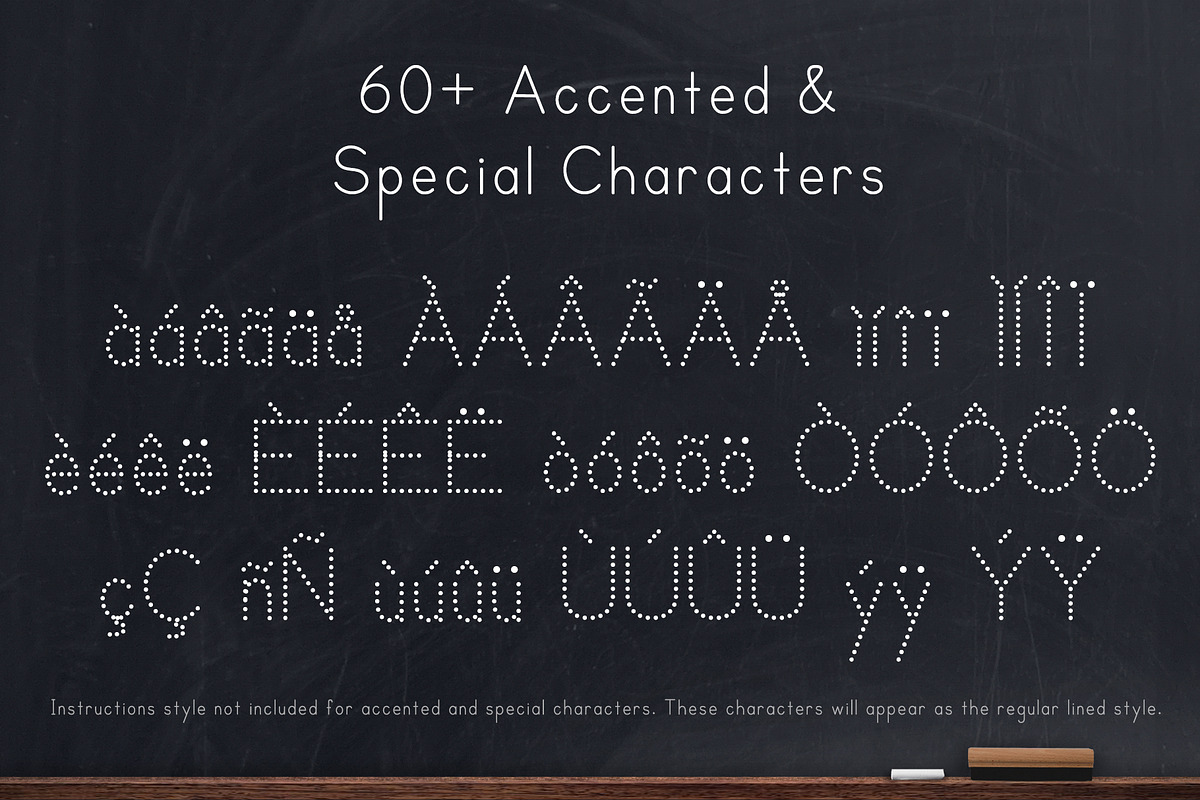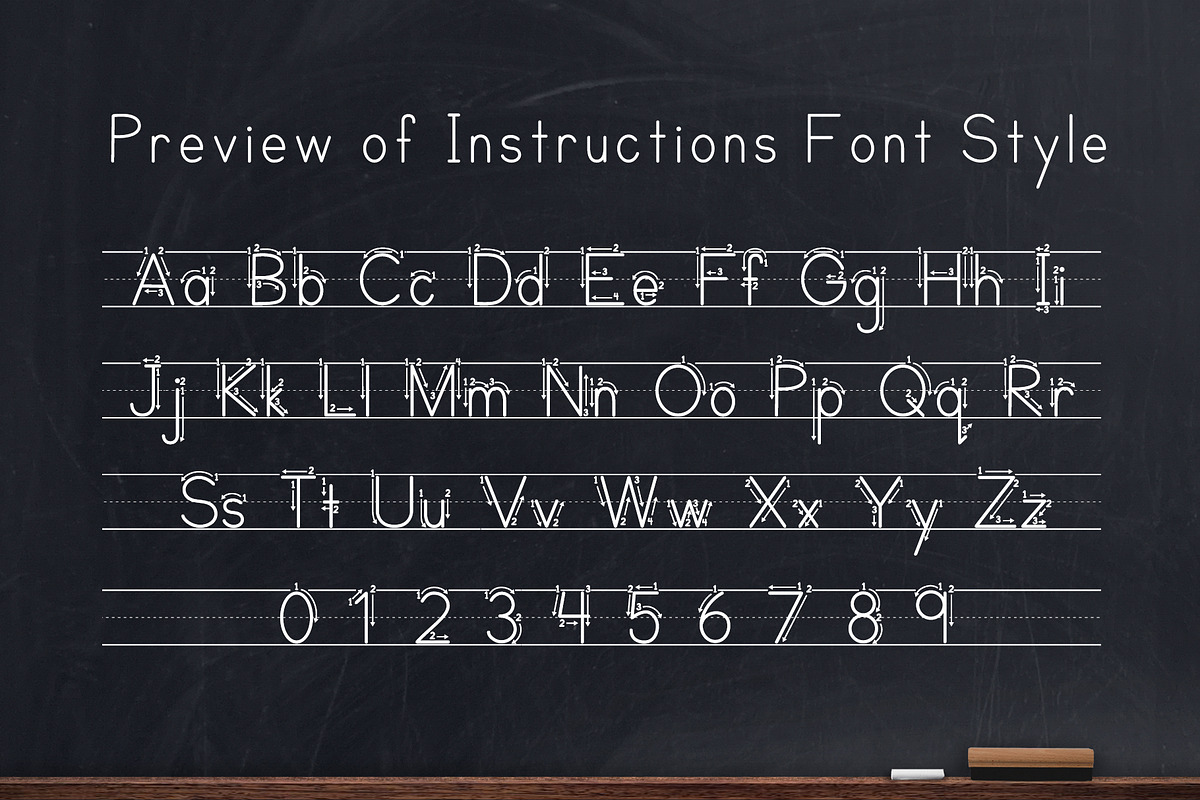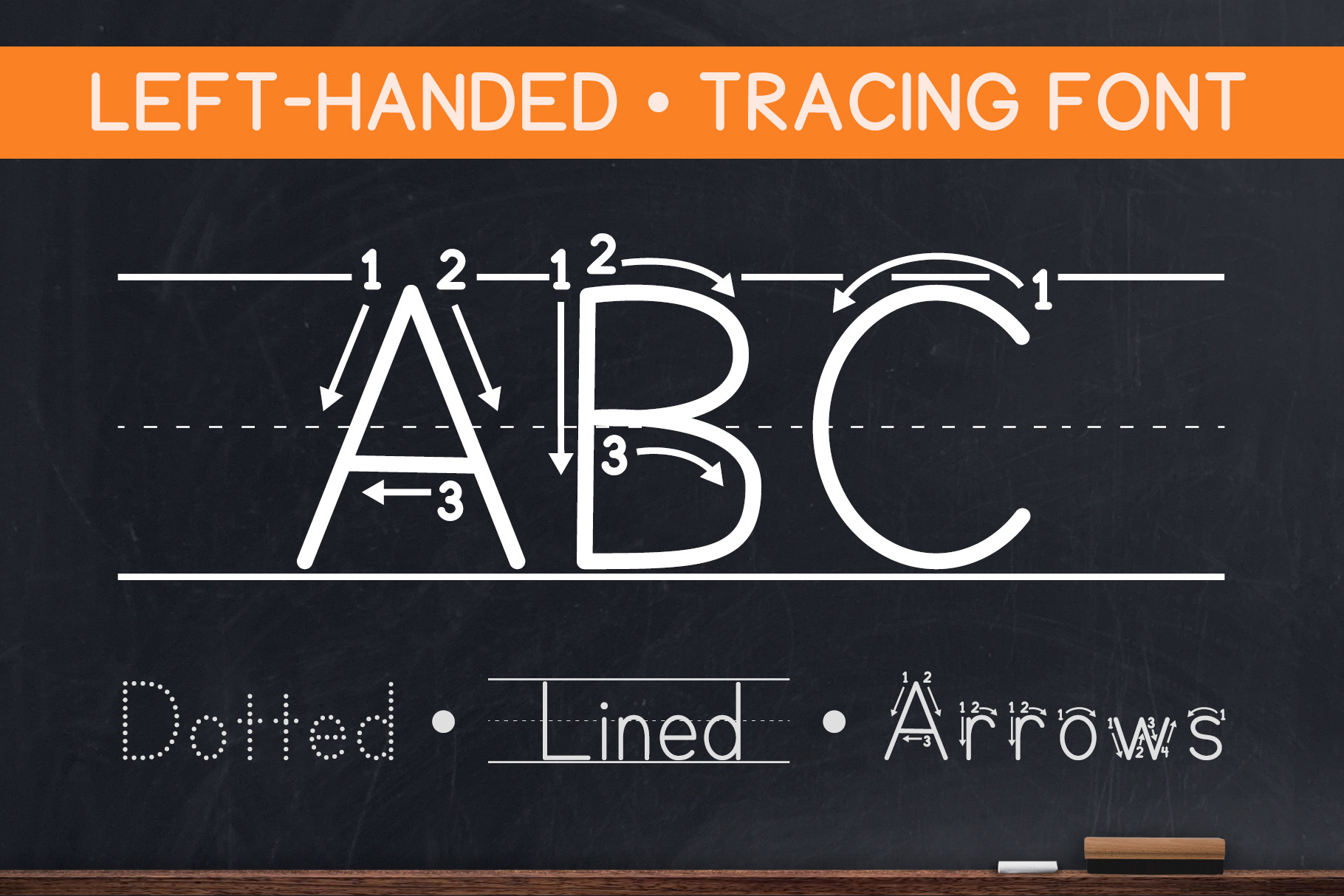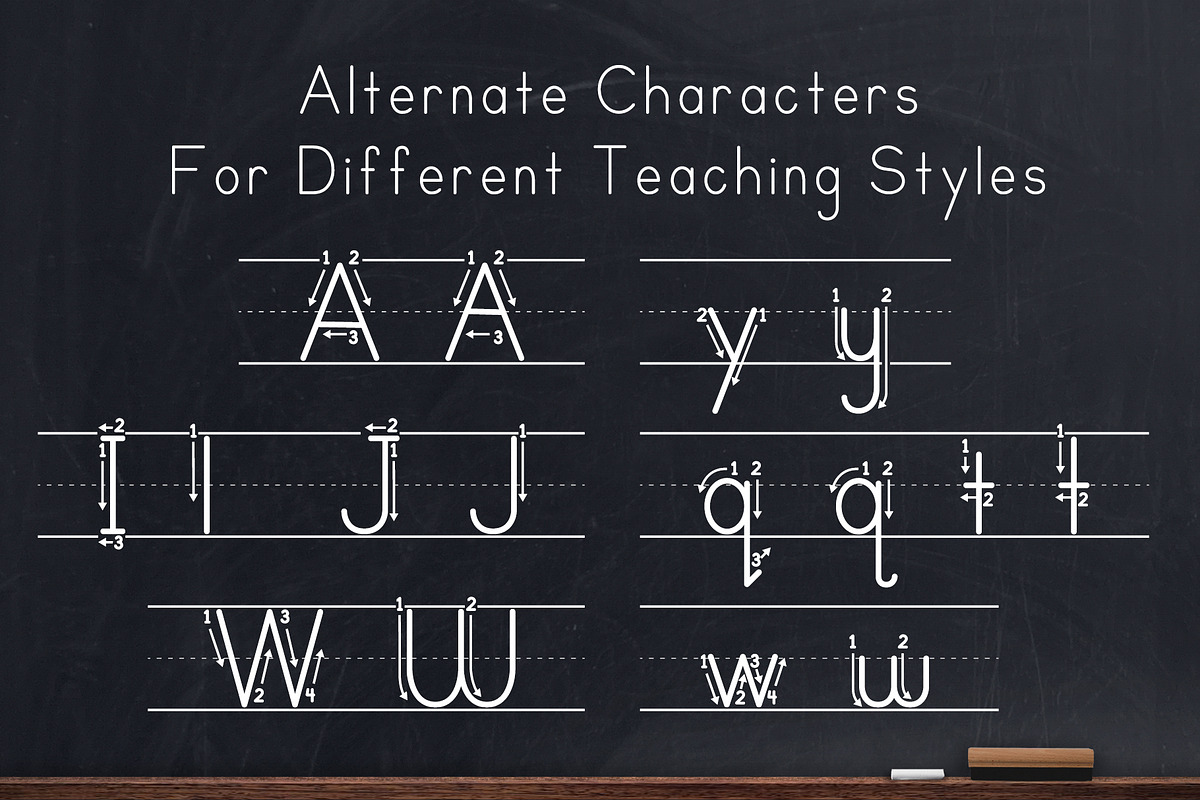
Left-Handed Letter Tracing Font
Teaching left-handed printing just got easier with this new instructional font. If you have struggled with teaching students who write with their left hand, this font gives you clear directional arrows for teaching them a formation that is comfortable for the way they write.
Keep in mind that not all left-handed writers will write exactly like this, but it gives you the basic starting point for teaching them their letters and numbers. You will notice slight differences in certain characters that pull to the left instead of the right (such as F, H, T, etc.). This font is an extension of the Teaching Print Font Family, which pairs perfectly with this left-handed version.
This letter tracing font is for teachers & learners of any skill level looking to create their own custom handwriting sheets to capture the attention of left-handed students and help them to quickly learn letters suited to their writing style.
The font includes 8 styles:
Lined:
- Dotted
- Arrows
- Arrows Dotted
Not Lined:
- Dotted
- Arrows
- Arrows Dotted